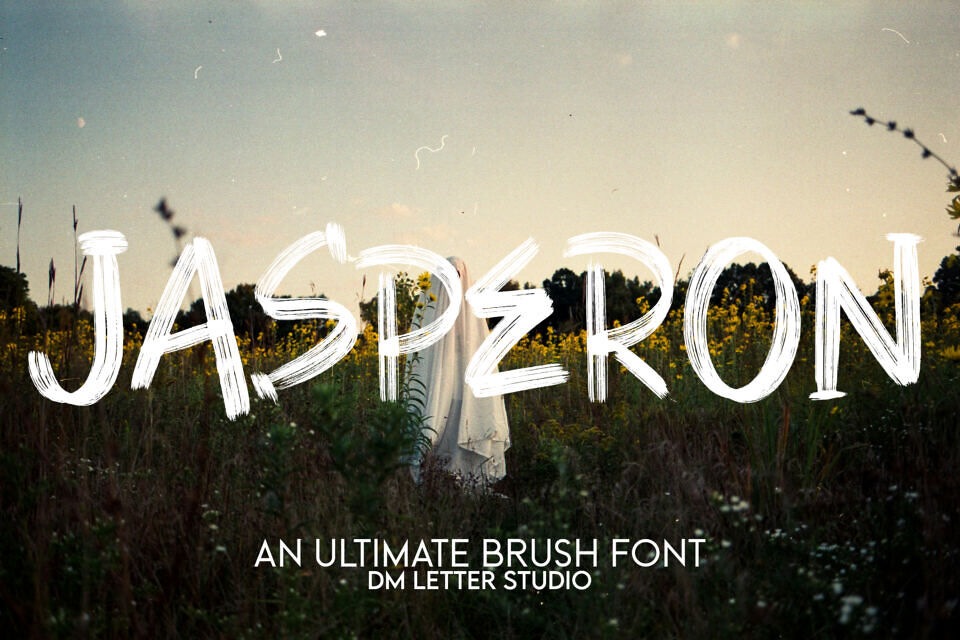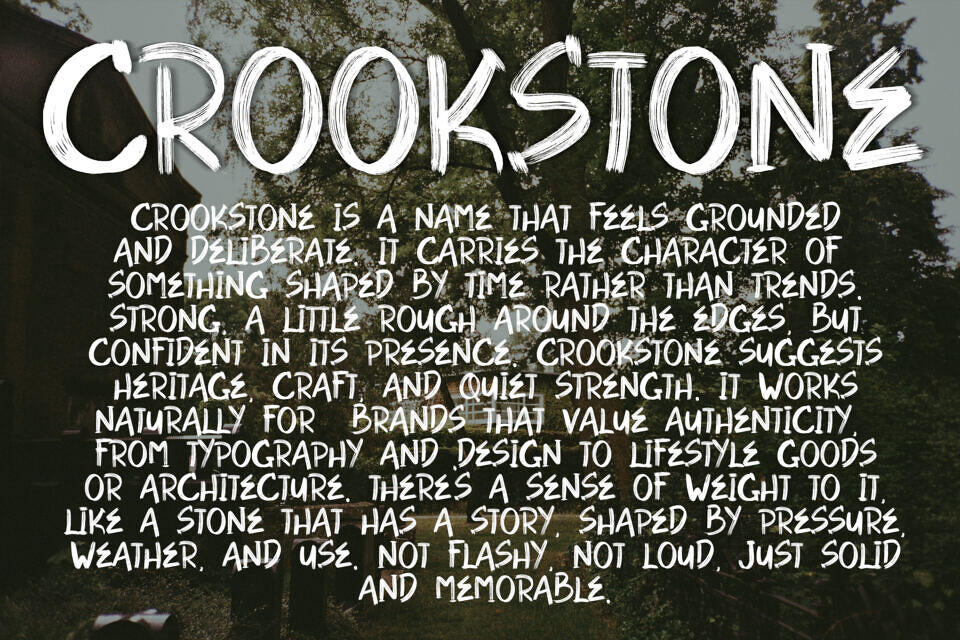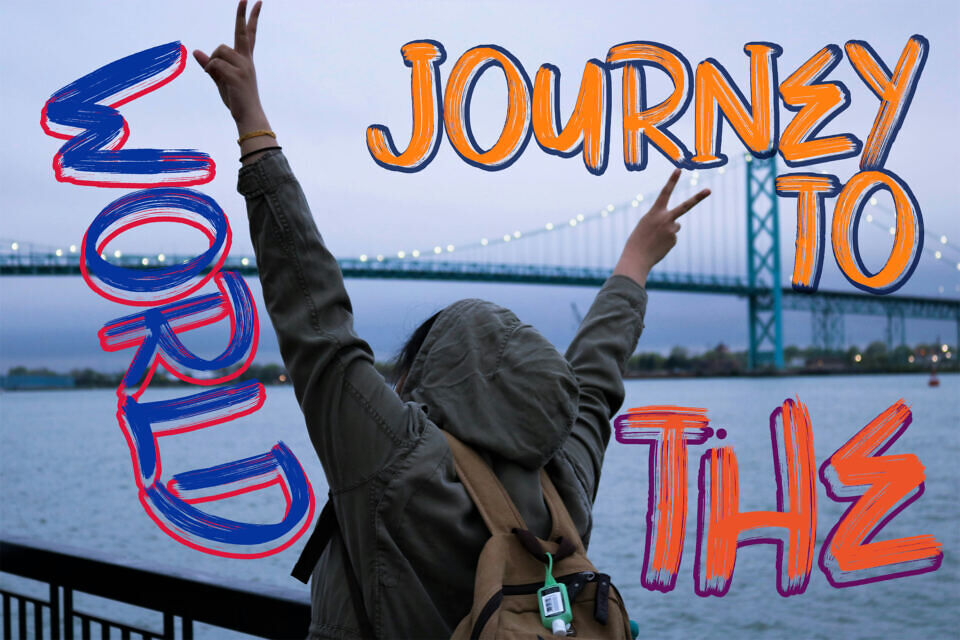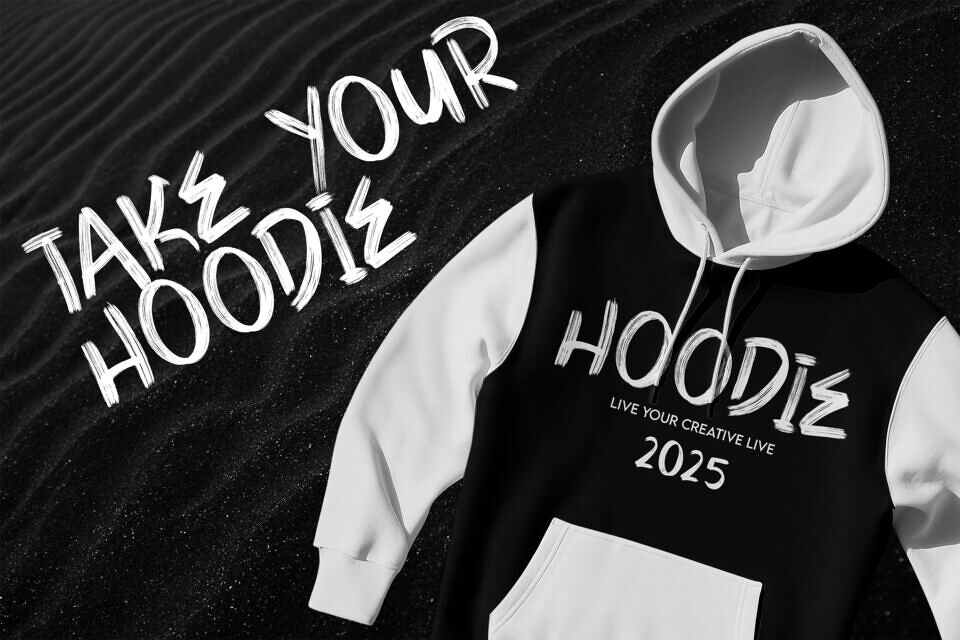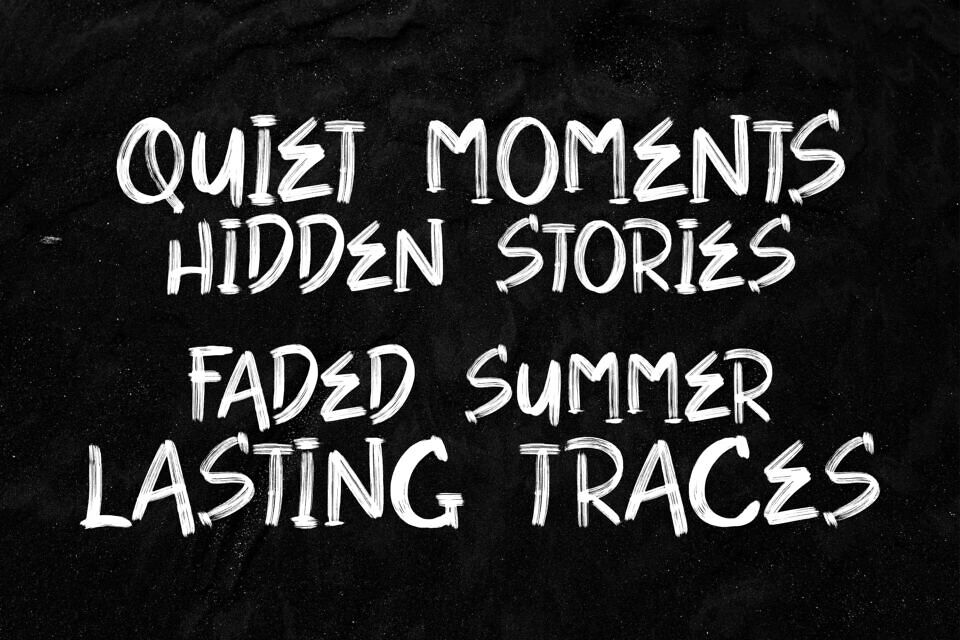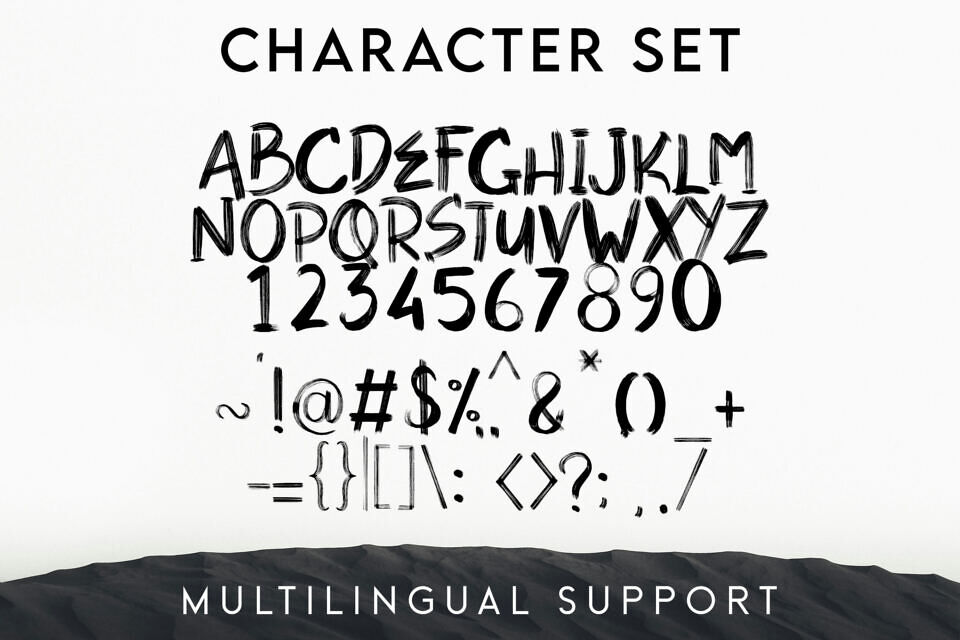
Jasperon is a bold, expressive brush font built to bring raw energy and confidence into your designs. Each stroke feels hand-painted, textured, and alive, giving your work a strong personality without losing readability.
The letterforms are dynamic but controlled, so headlines stay powerful while short phrases remain clear. Whether used large or small, Jasperon delivers impact with an authentic handcrafted feel. Use it for branding, posters, apparel, social media graphics, packaging, and creative quotes. As a result, your designs feel bold, modern, and unmistakably human.